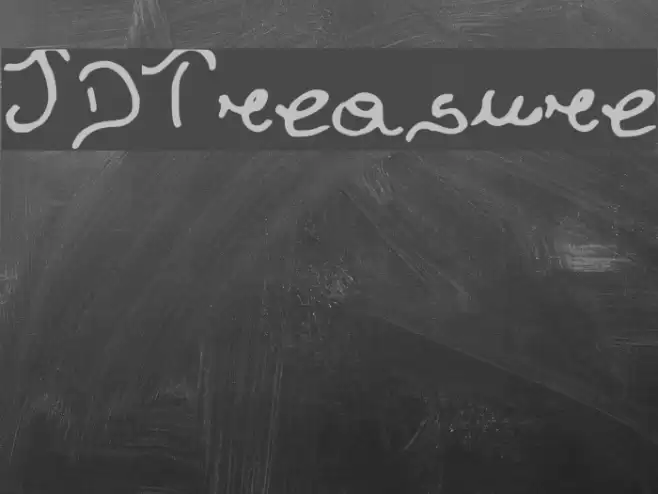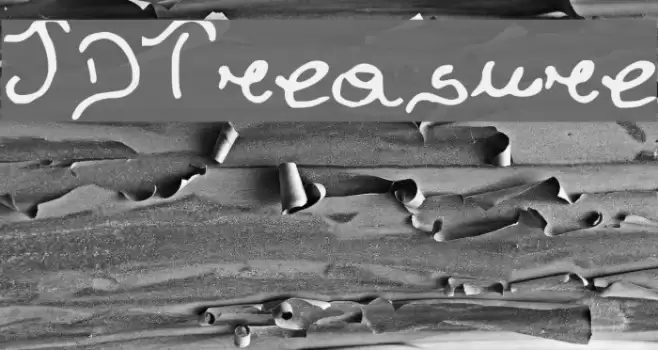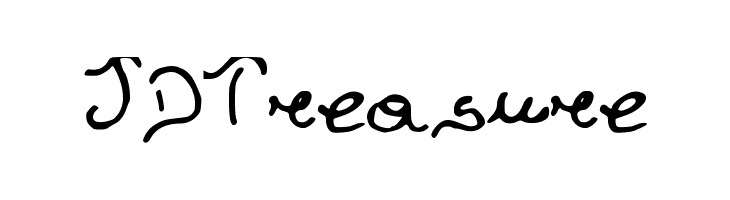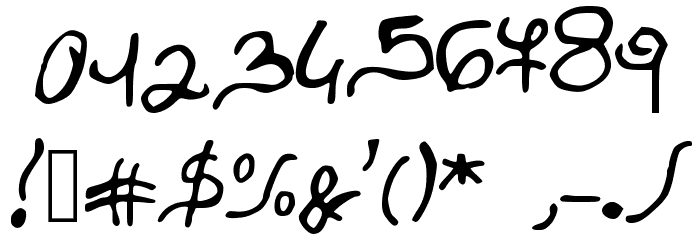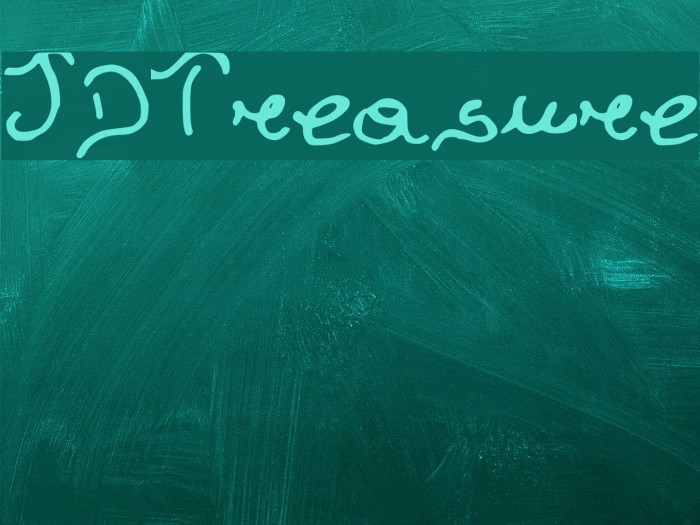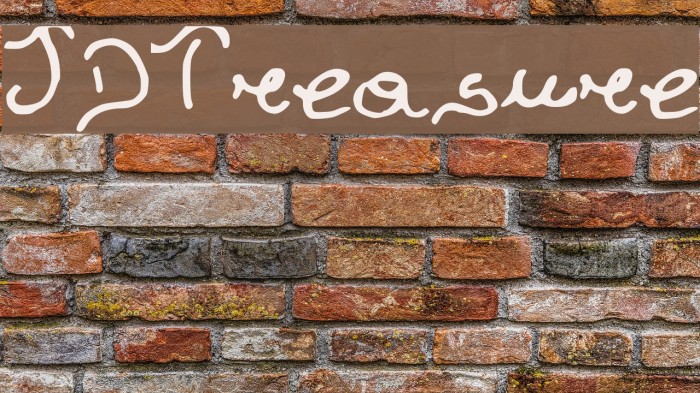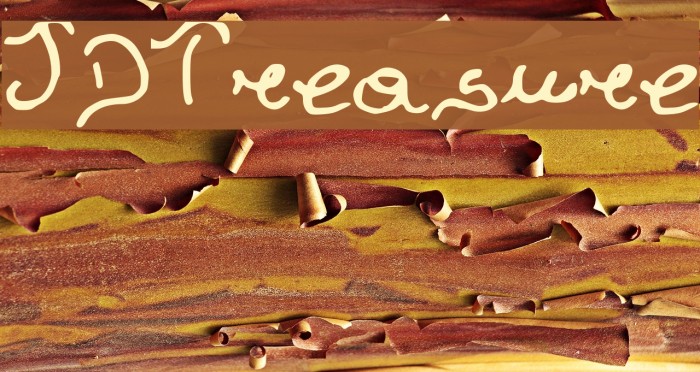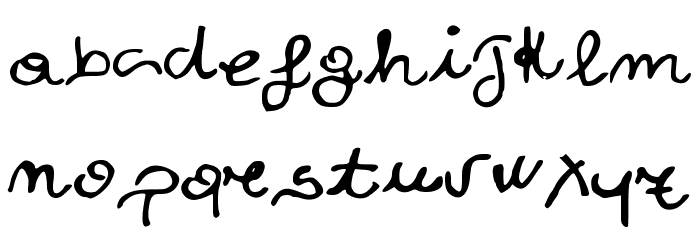
JDTreasure Font
JDTreasure Description
This font exhibits a unique, handwritten style with a playful and artistic flair. The letters are characterized by their fluid, cursive strokes, giving them a dynamic and lively appearance. The uppercase letters maintain a consistent height, while the lowercase letters vary slightly in size, adding to the casual, informal feel. The numerals are distinct, with a slightly exaggerated curvature that complements the overall whimsical aesthetic. Special characters are creatively designed, maintaining the font's cohesive style. The overall impression is one of creativity and expressiveness, making it suitable for projects that require a personal touch.
A playful, handwritten font with fluid, cursive strokes and a creative flair from Uncategorized fonts.
- Proposed Projects: Ideal for greeting cards, invitations, personal branding, and artistic projects.
- Use Case: Logos, Invitations, Artistic projects